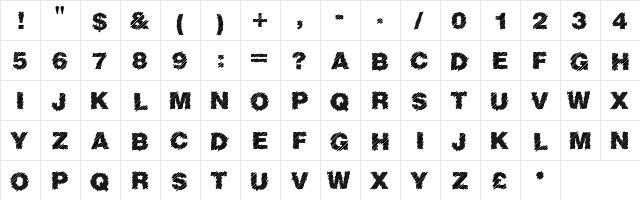
Sliced Juice Regular
Design Context for Sliced Juice Typeface
Sliced Juice is a composed and adaptable typeface that performs quietly and consistently across a wide range of design contexts.